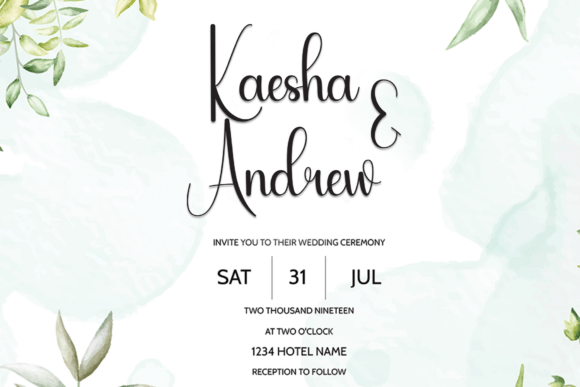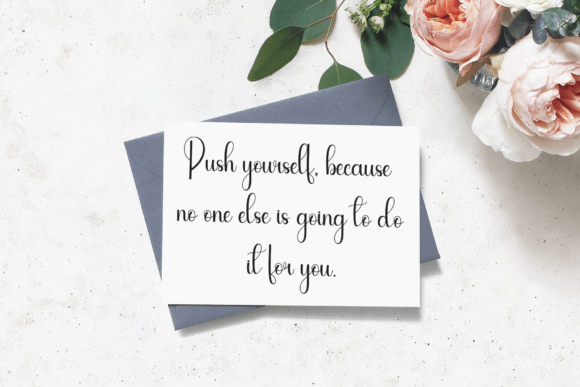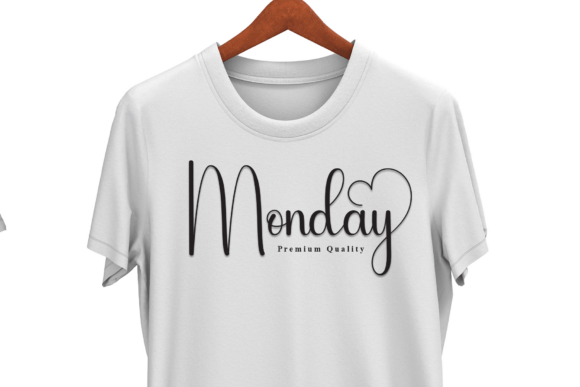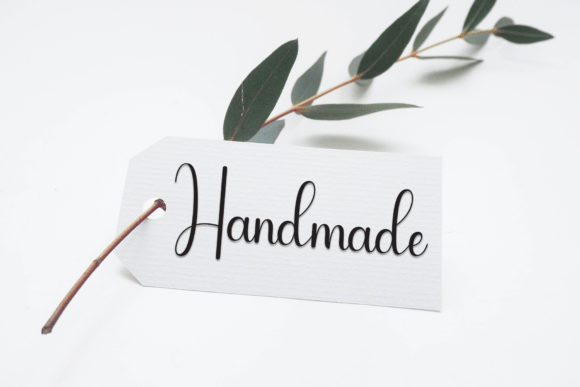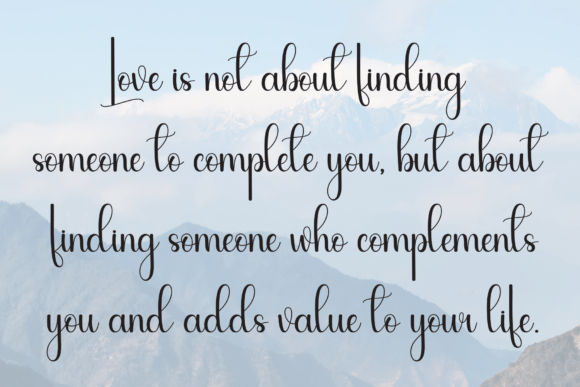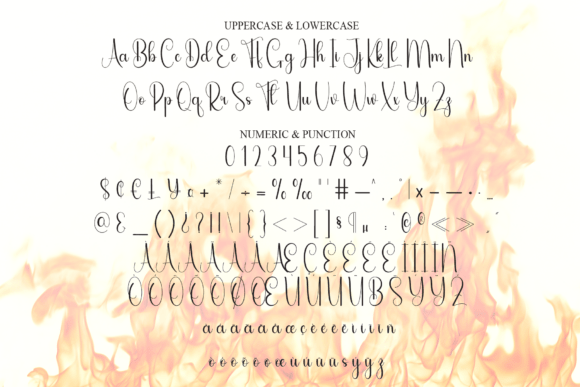
Baking Font: Elevate Your Designs with Elegance and Charm
In the world of typography, few fonts manage to capture the essence of elegance and charm as effortlessly as the Baking Font. This stylish handwritten script font has been making waves in the design community, and for good reason. Its fluid, graceful strokes exude a sense of sophistication and refinement, making it the perfect addition to any design project that requires a touch of class.
The Characteristics of Baking Font
So, what sets the Baking Font apart from other script fonts on the market? For starters, its smooth curves and natural flow create a timeless, refined look that is hard to achieve with more traditional fonts. The strokes are fluid and connected, giving the font a sense of movement and energy that is sure to capture the attention of your audience.
Another key feature of the Baking Font is its versatility. Whether you’re working on a branding project, designing invitations, or creating stationery, this font is perfectly suited to add a personal and sophisticated touch. Its elegant appearance makes it an excellent choice for high-end designs, while its approachable feel ensures that it remains accessible to a wide range of audiences.
As a designer or crafter, you’re likely always on the lookout for fonts that can help elevate your work and set it apart from the competition. The Baking Font is an excellent addition to any design toolkit, offering a unique combination of style, sophistication, and approachability.
One of the key benefits of the Baking Font is its ability to add a touch of warmth and personality to your designs. In an era where digital communication dominates, it’s easy for designs to feel cold and impersonal. But with the Baking Font, you can add a human touch that makes your designs feel more relatable and engaging.
Using Baking Font in Your Designs
So, how can you make the most of the Baking Font in your designs? Here are a few tips to get you started:
- Pair it with contrasting fonts: To really make the Baking Font shine, try pairing it with a contrasting font that adds a touch of modernity or edginess. This will help create visual interest and add depth to your designs.
- Experiment with colors: The Baking Font looks stunning in a range of colors, from rich jewel tones to soft pastels. Don’t be afraid to experiment and find the perfect hue to match your brand or design aesthetic.
- Use it sparingly: While the Baking Font is undoubtedly beautiful, it’s also quite elegant and refined. To avoid overwhelming your designs, try using it sparingly – for headings, titles, or special text elements.
In conclusion, the Baking Font is a stylish and sophisticated handwritten script font that is sure to elevate your designs to new heights. Its fluid, graceful strokes and smooth curves create a timeless, refined look that is perfect for branding, invitations, stationery, and more. Whether you’re a designer, crafter, or simply someone who appreciates beautiful typography, the Baking Font is an excellent addition to any design toolkit.